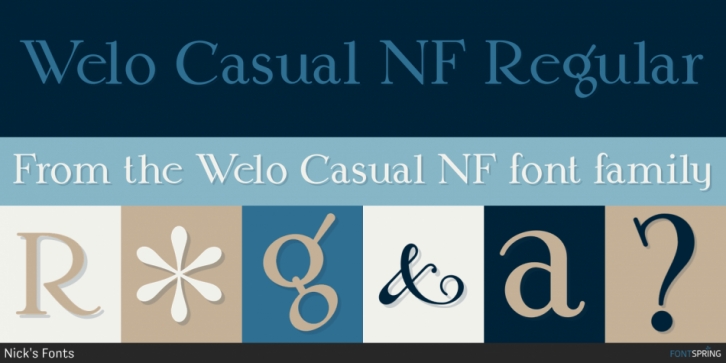
Welo Casual NF is a serif font published by Nick's Fonts.
Another tip of the hat to master draftsman Samuel Welo. His famous Studio Handbook was hand-lettered throughout, and provided the inspirations for many of Nick’s favorite fonts. This little number is based on the unnamed style Mr. Welo used for much of his paragraph text. Use it when you want to convey homespun warmth and a handmade feel. Both versions of this font include the complete Unicode Latin 1252, Central European 1250 and Turkish 1254 character sets.